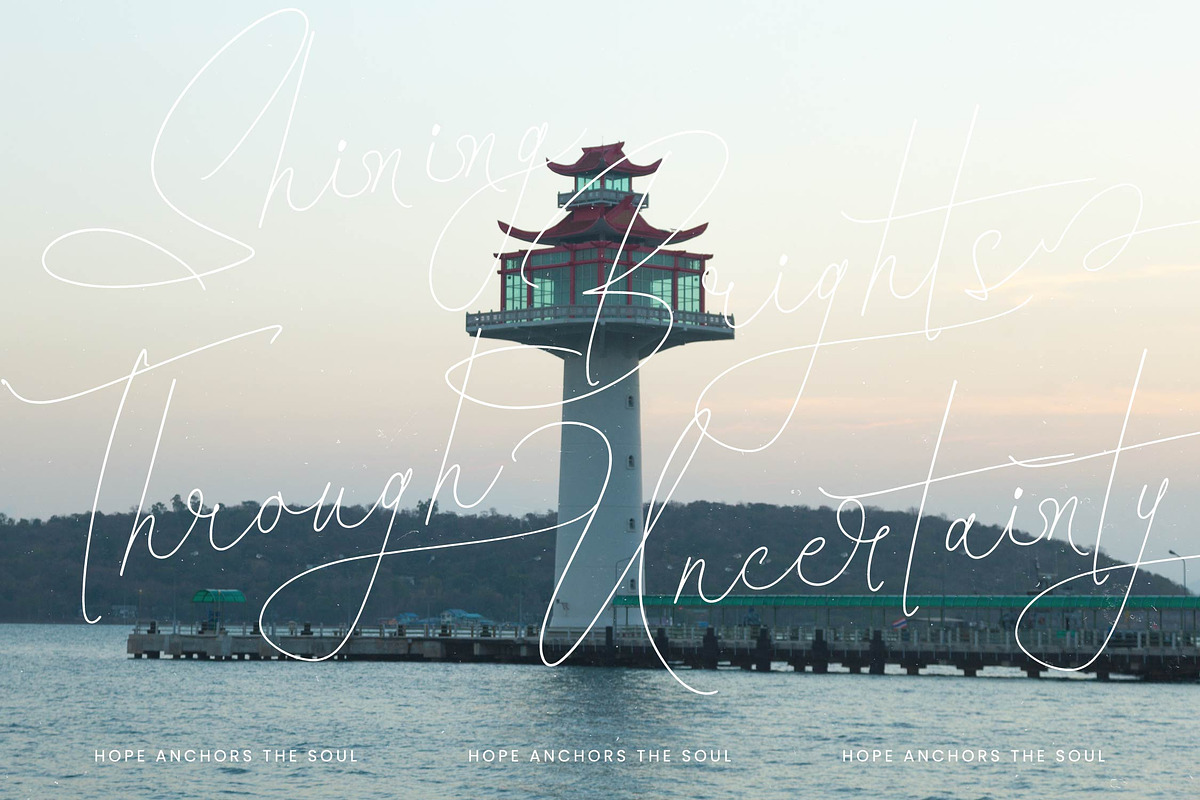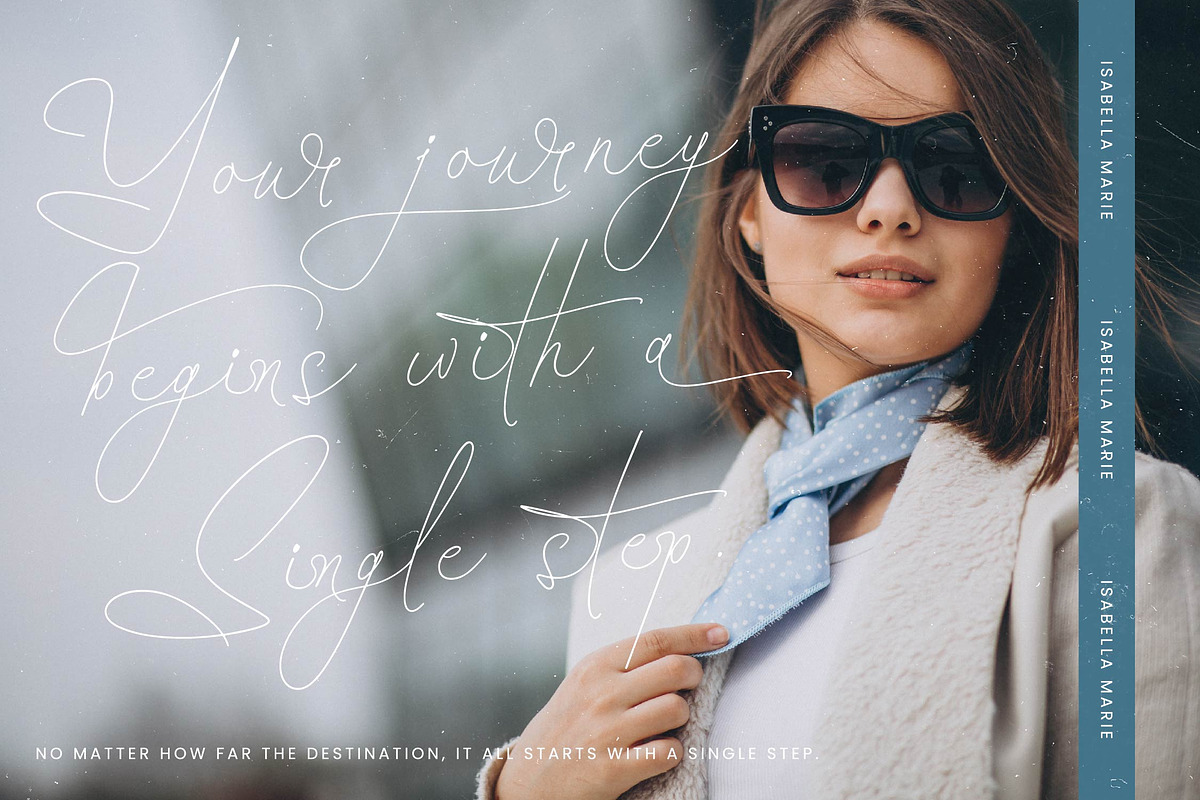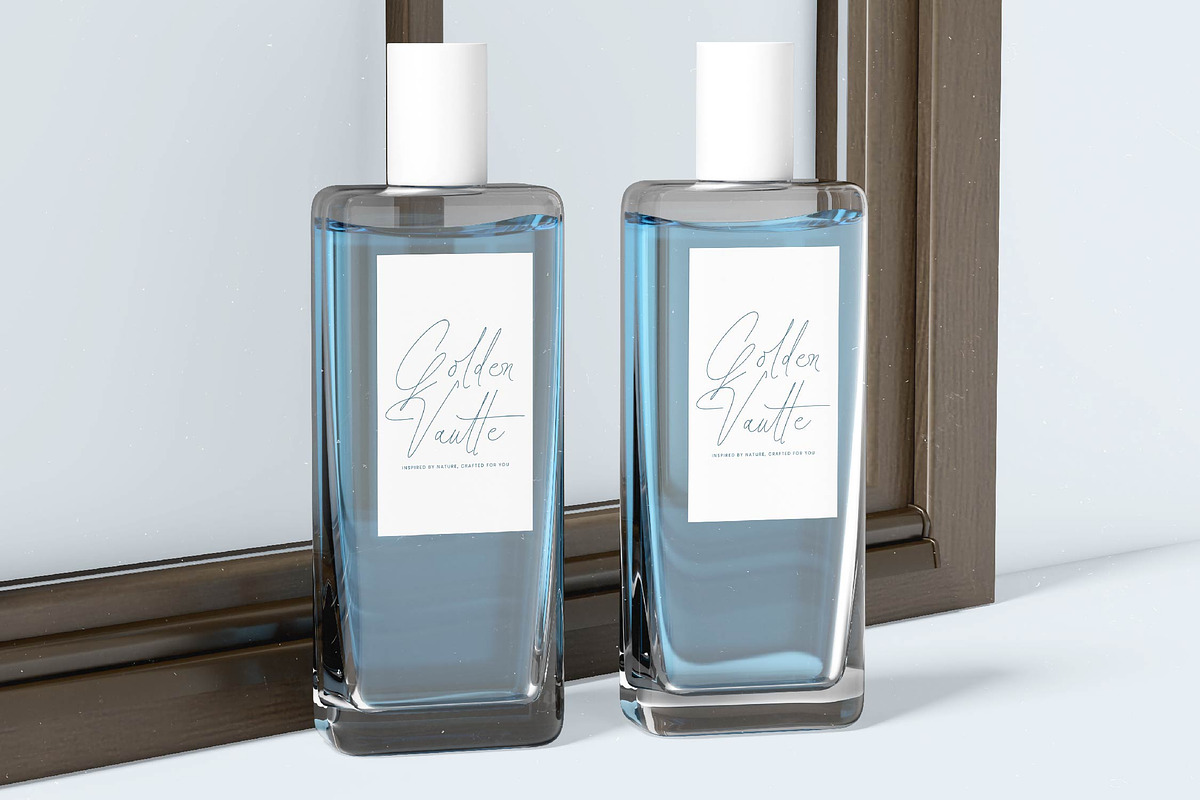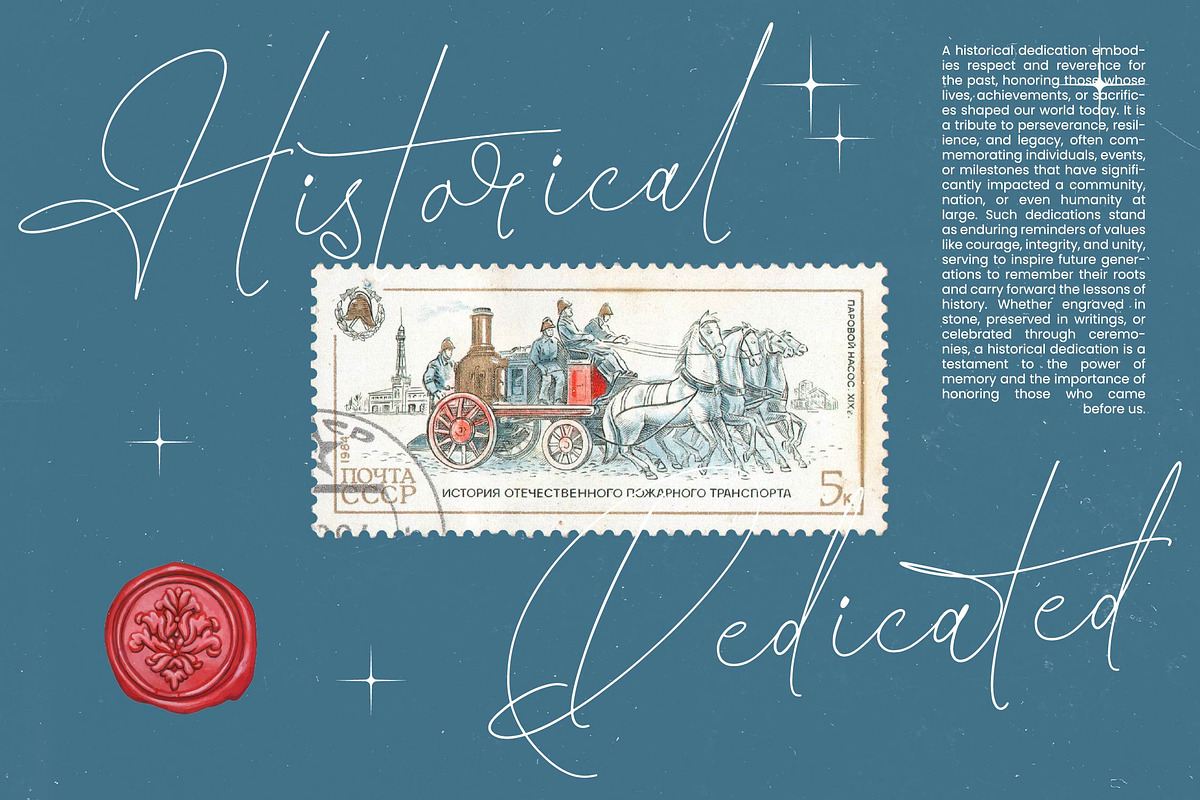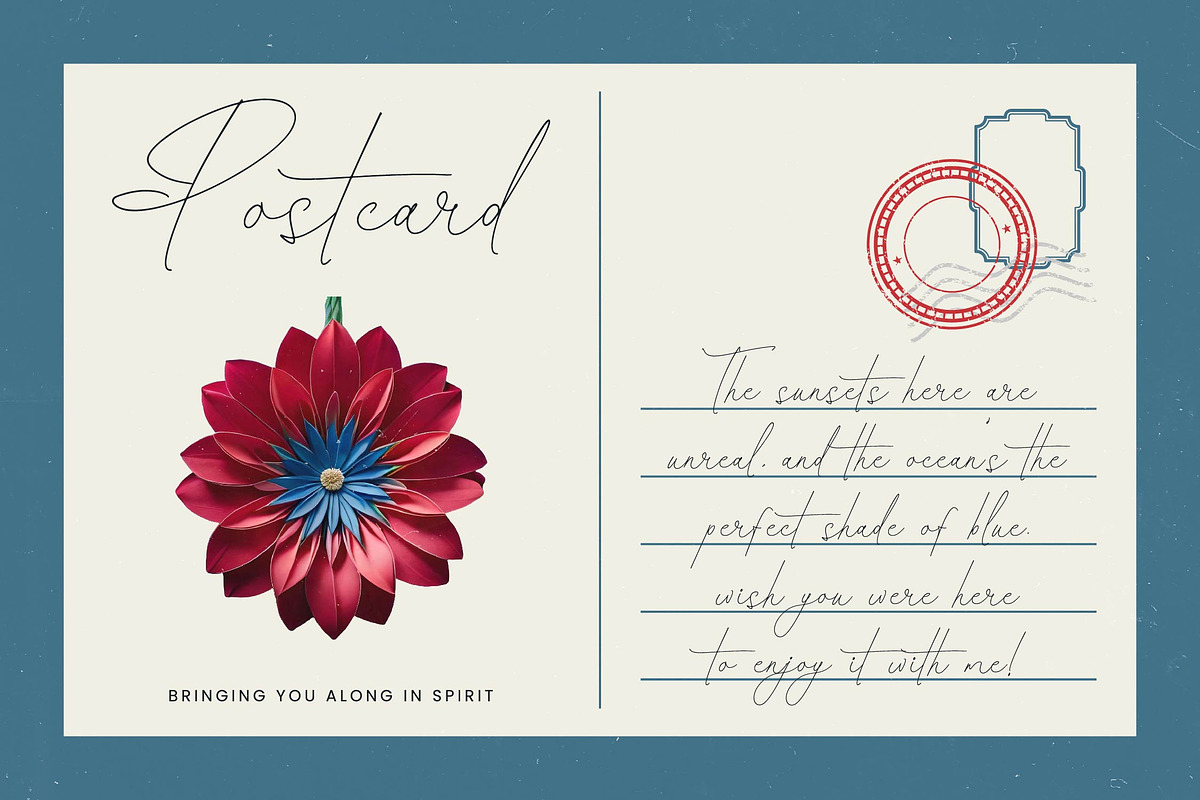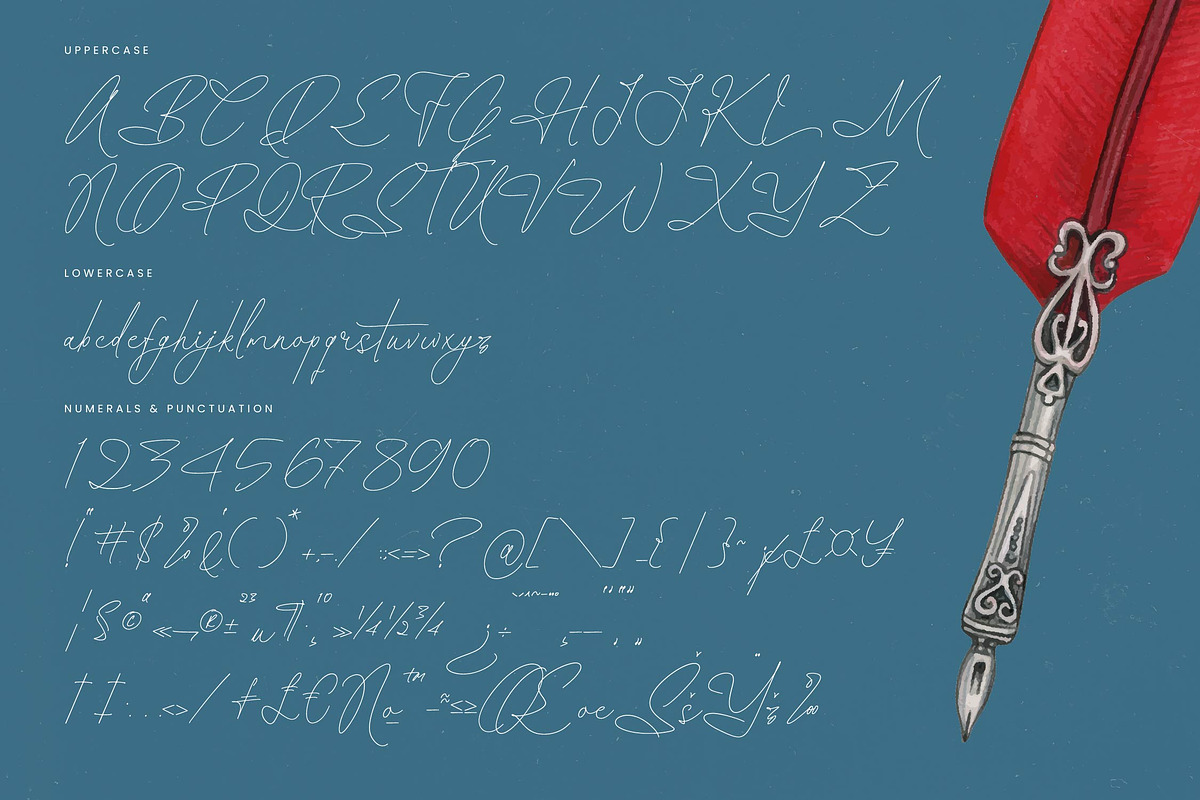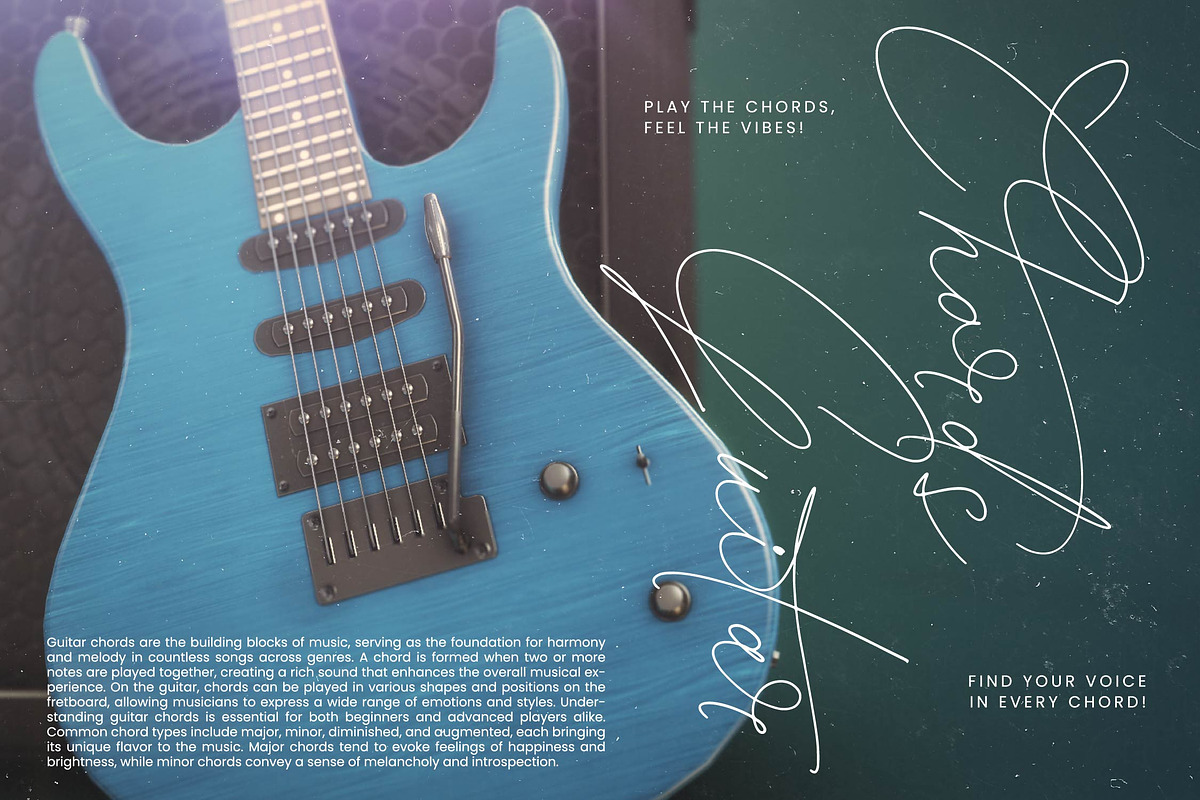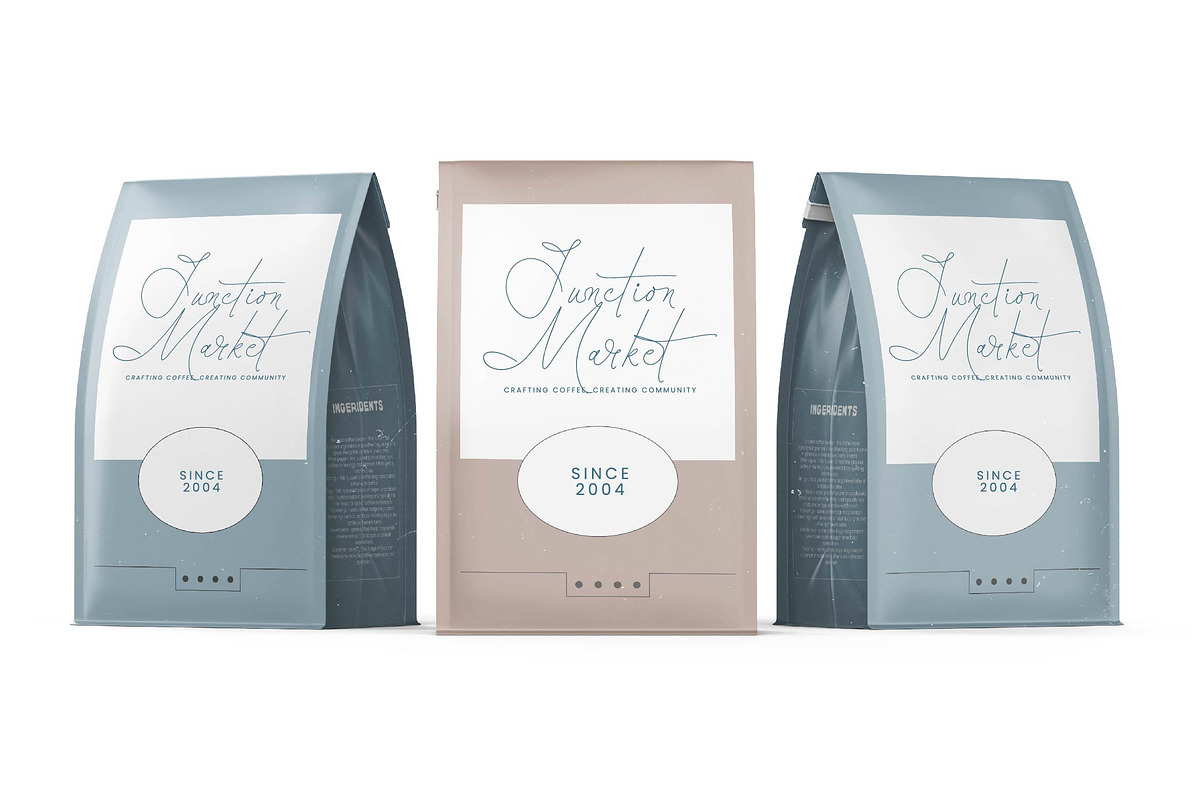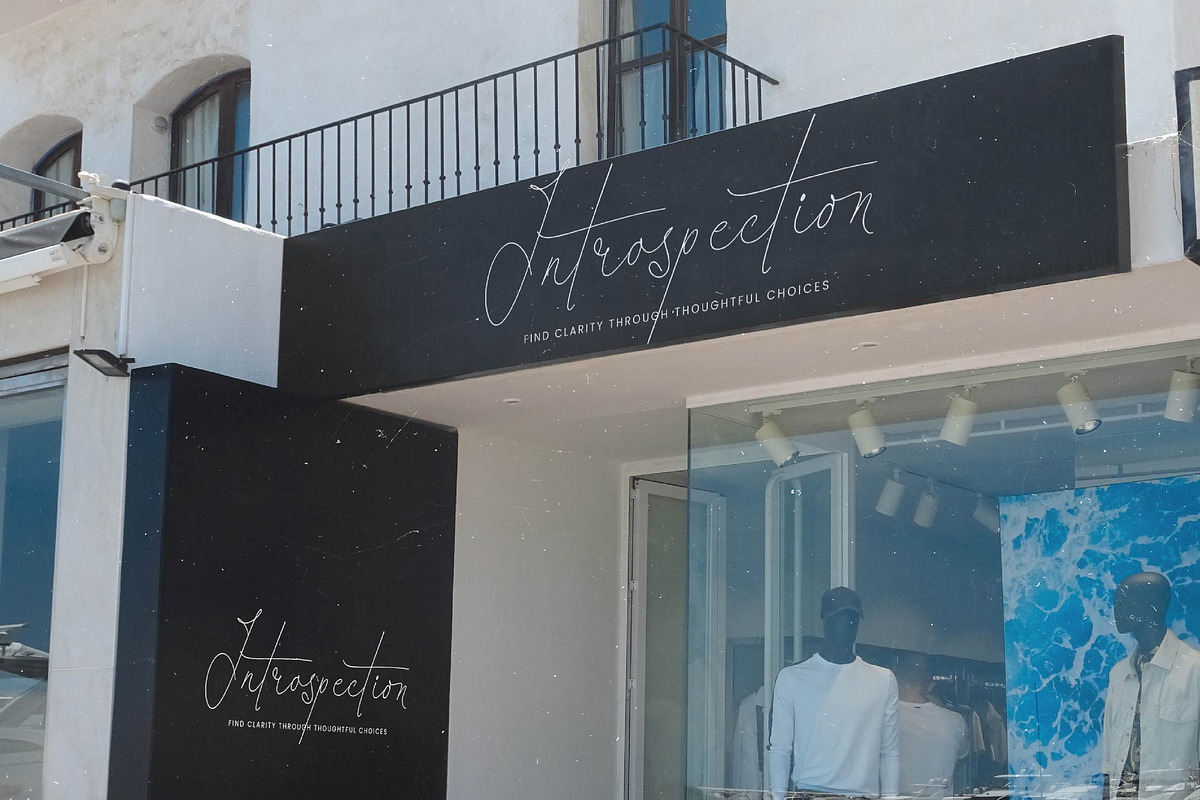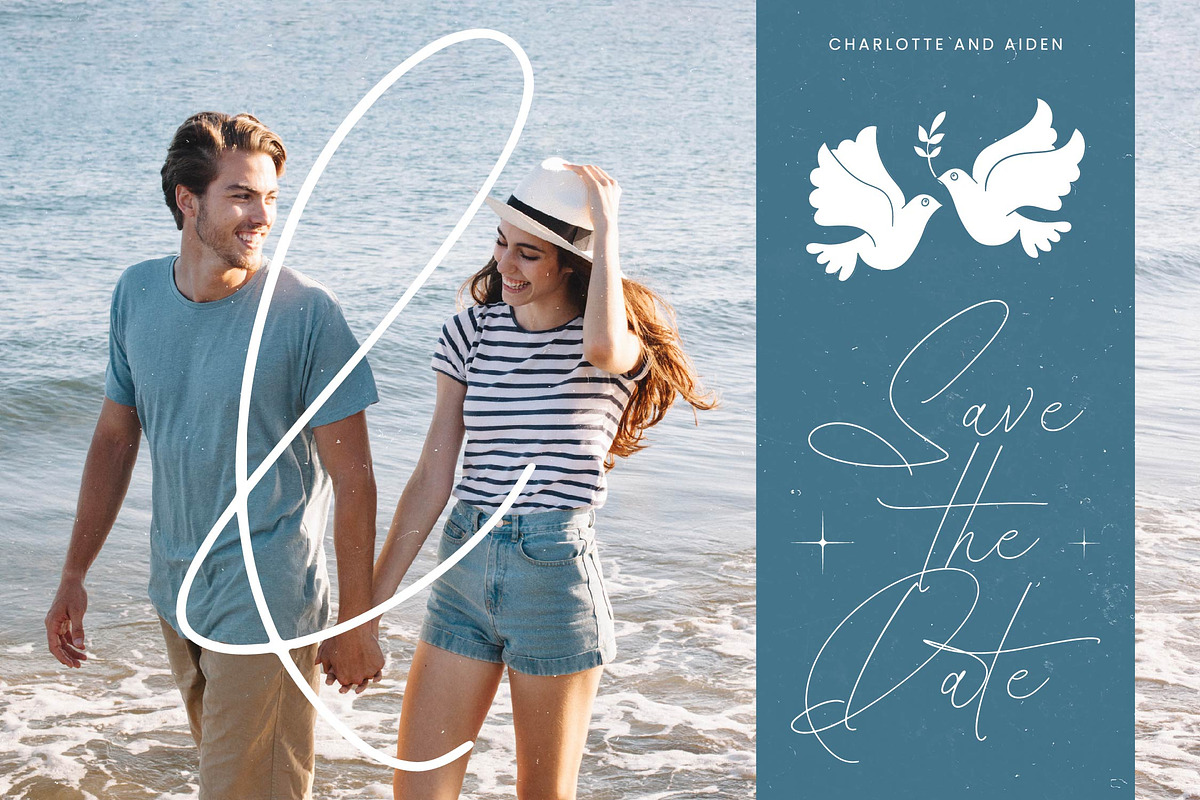
Santiago Portale Stylish Signature
Santiago Portale - Stylish Signature Font , from Stylishtype.Co , Suitable for any projects such as: logos, branding projects, homeware designs, product packaging, mugs, quotes, posters, shopping bags, t-shirts, book covers, name card, invitation cards, greeting cards, label, photography, watermark, special events, and all your other luxury and beautiful projects that need a Luxury Script taste.
- 87 Ligature 40 Alternates & Swashes